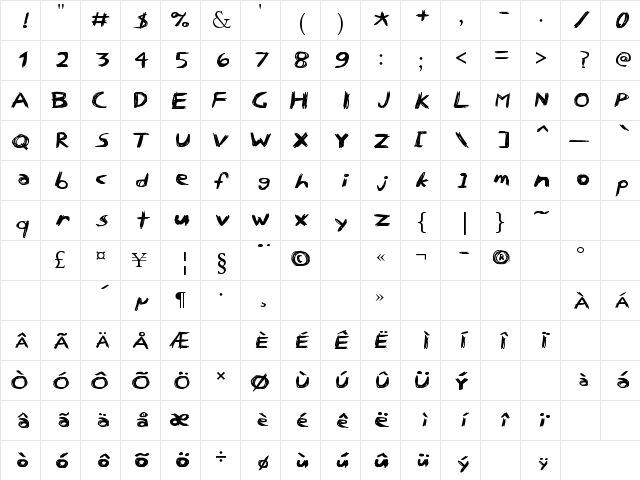
Five_scratch Regular Font Preview
Five_scratch Regular
Design Context for Five_scratch Typeface
Five_scratch is a composed and adaptable typeface that performs quietly and consistently across a wide range of design contexts.